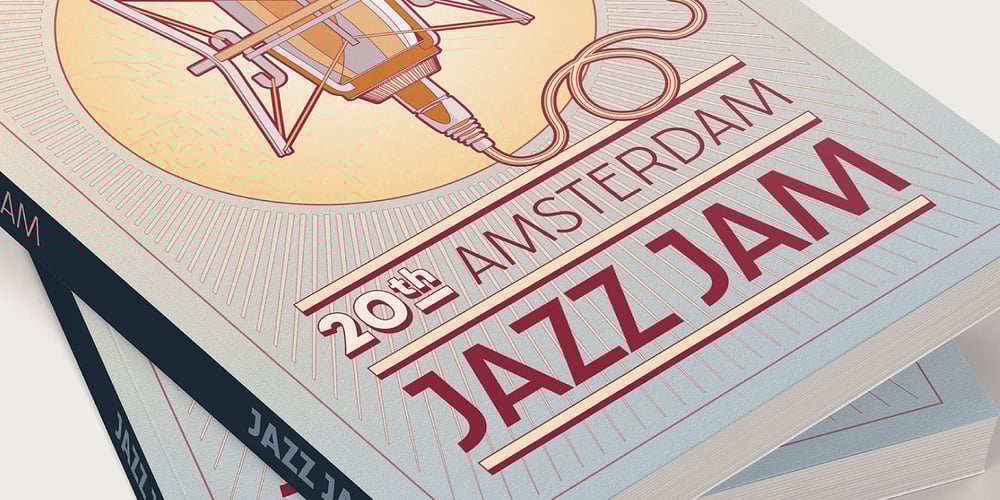
Artnoova
Artnoova font
Artnoova Font Family was designed by Alexey Popov and published by Popskraft. Artnoova contains 24 styles and family package options. The Artnoova typeface combines the inimitable mastery of the great styles of the early twentieth century and at the same time looks organic among modern ones.Like the famous Art Deco typeface, Artnoova is designed for a strong yet elegant typography. In addition, a balanced set of capital letters allows you to type large sections of text.All this allows the Artnoova font to be used in almost any area of ​​design, such as corporate identity, typography, posters, web design and other design areas.